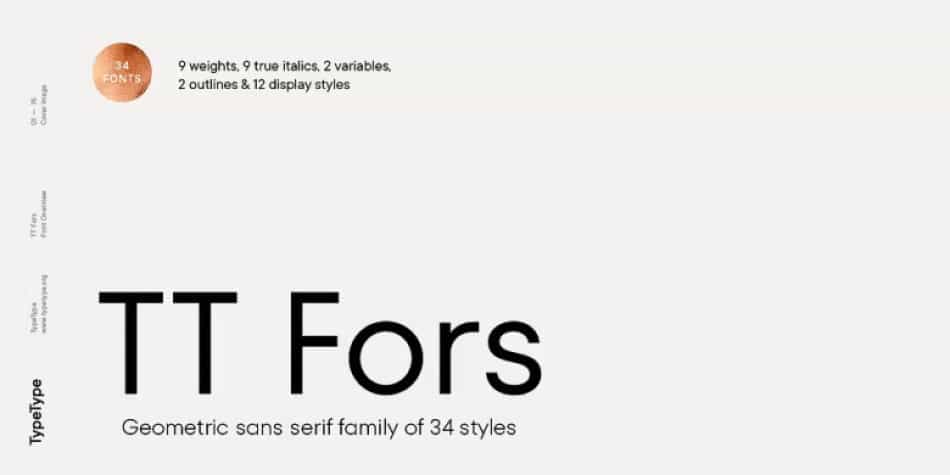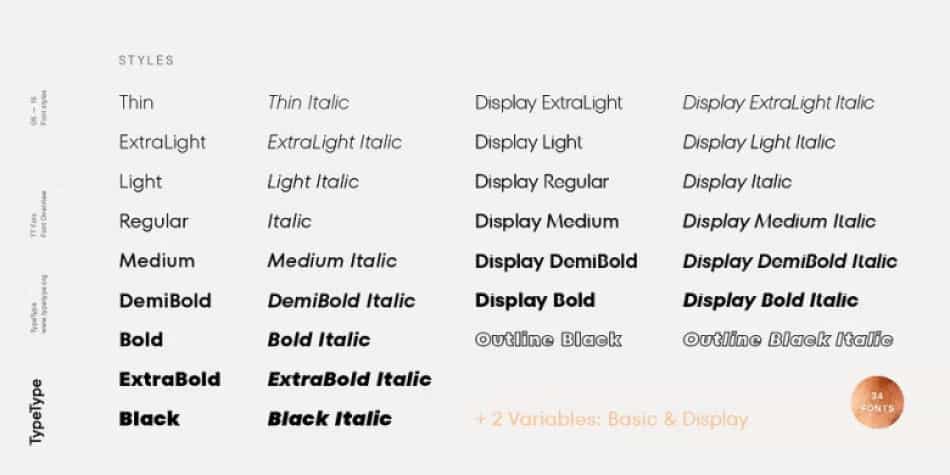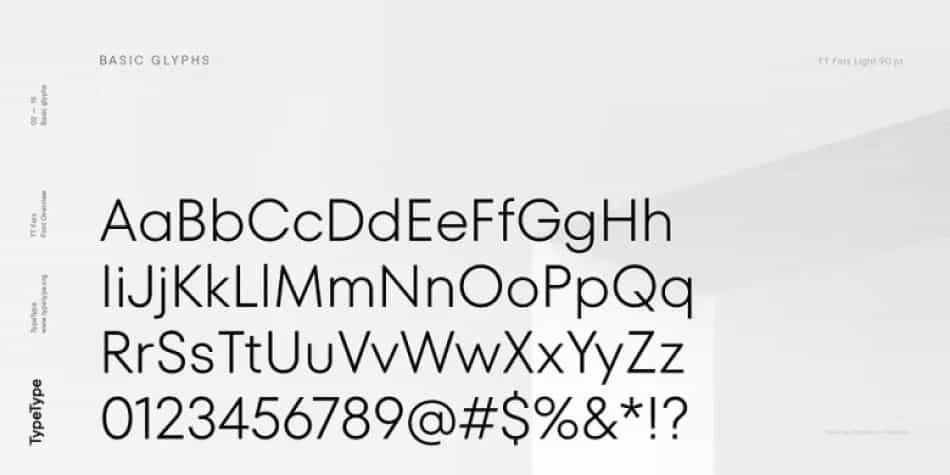
TT Fors is a neutral geometric sans serif font family with equal attention to each detail and the perfect balance of proportions. It features two subfamilies: These can be the display and the text. The font family extends the TypeType’s collection of the practical sans serifs that come in TT Norms Pro, TT Commons Pro, TT Hoves Pro, TT Interphases Pro, and TT Firs Neue. The inspiration for TT Fors was derived from the study of geometric sans serifs of the twentieth century and their role in the aesthetic landscape of the said period.